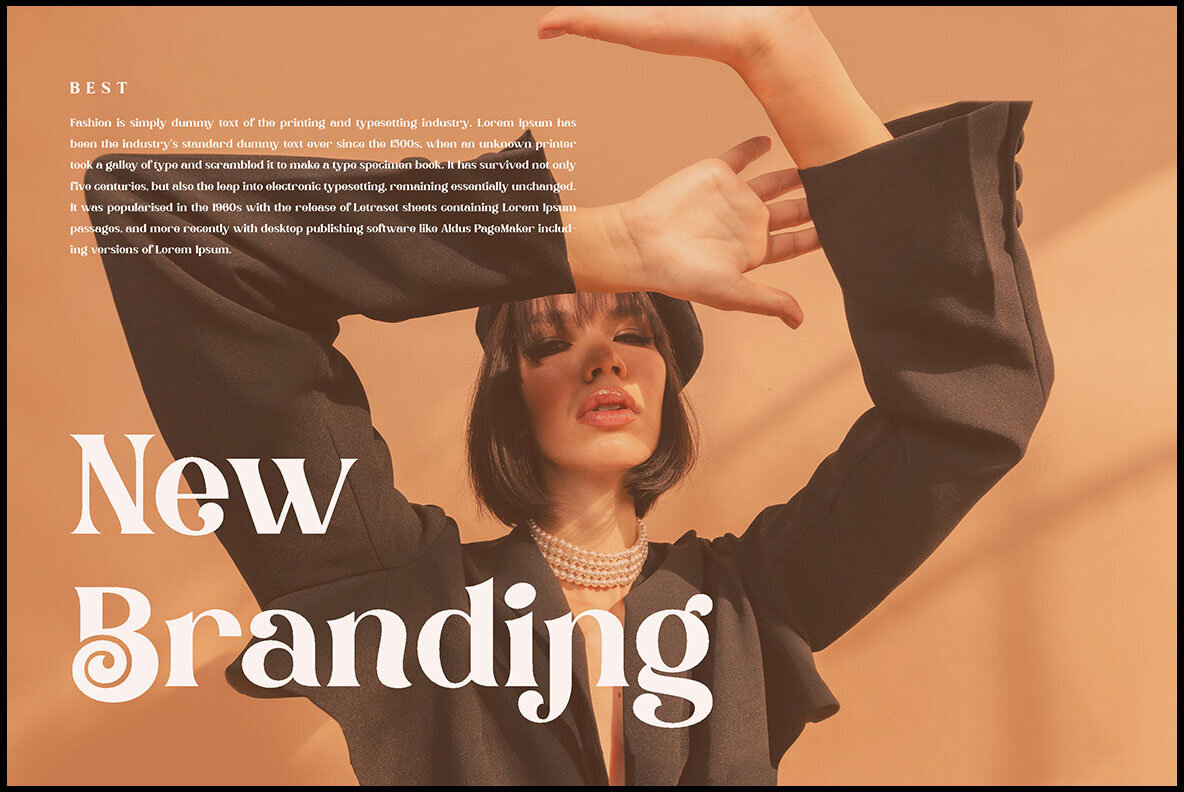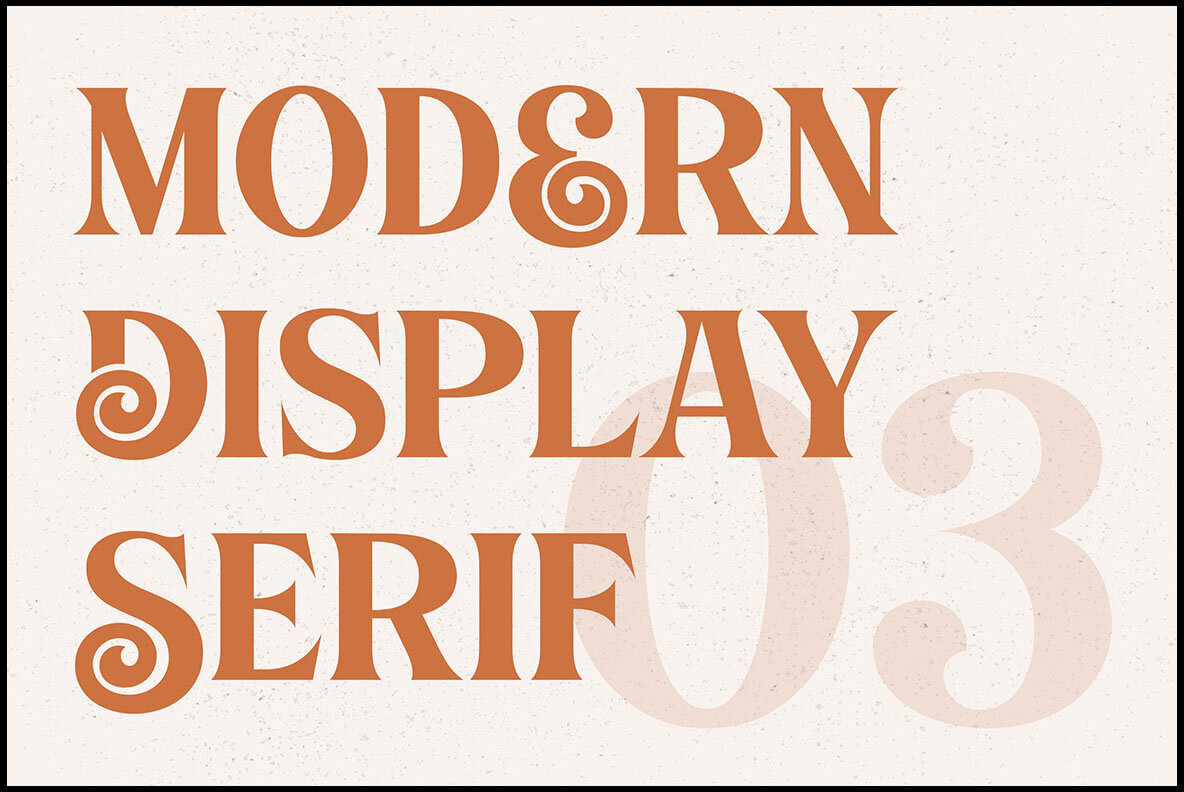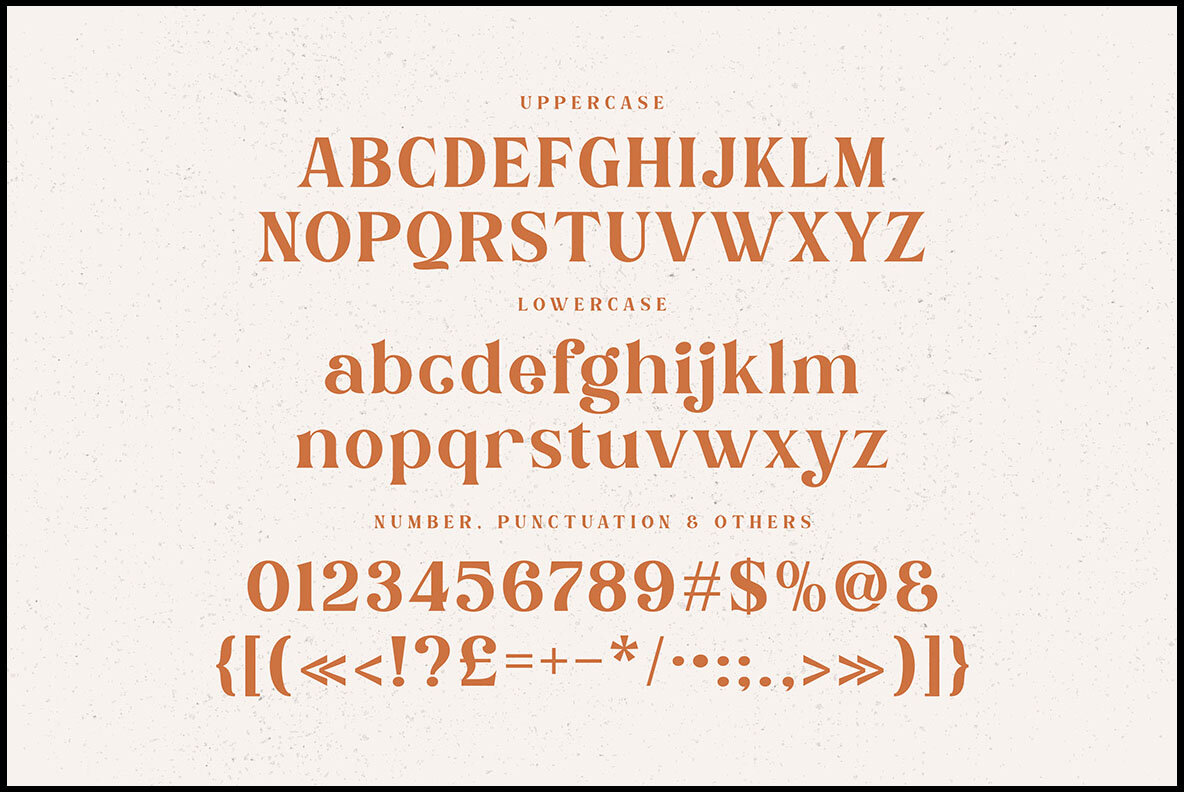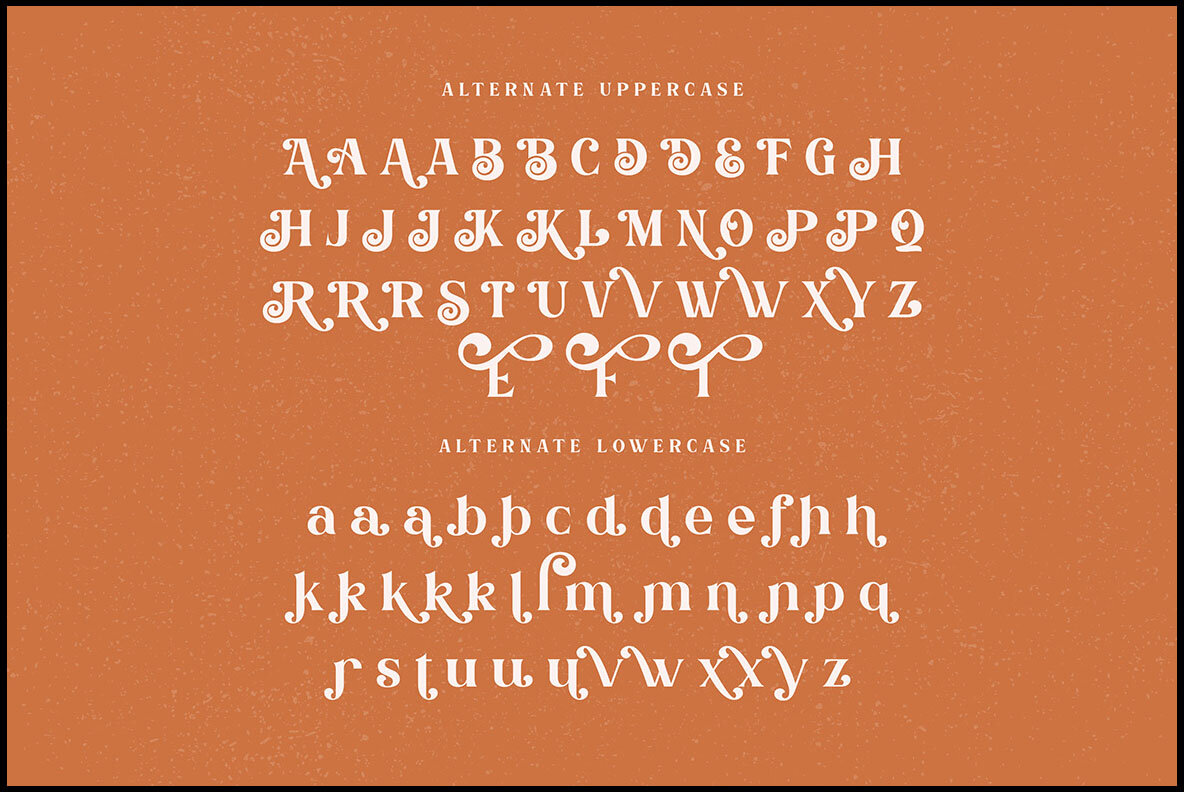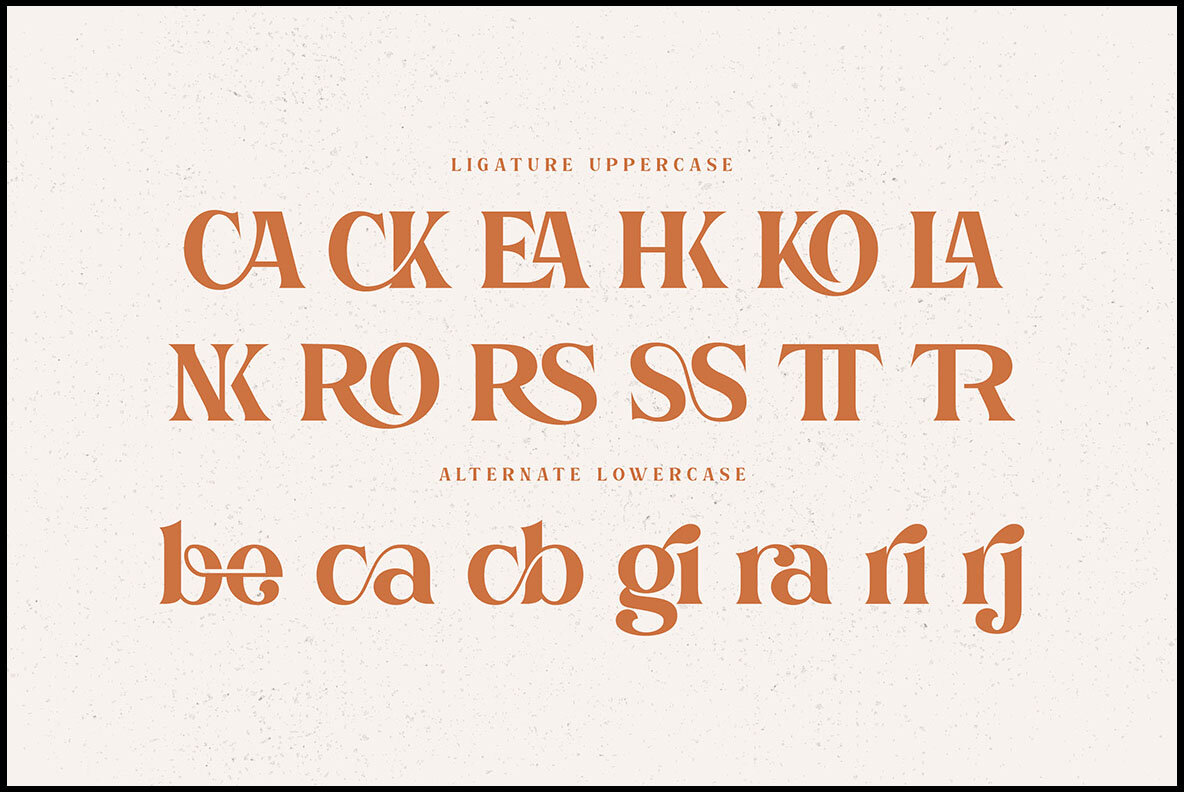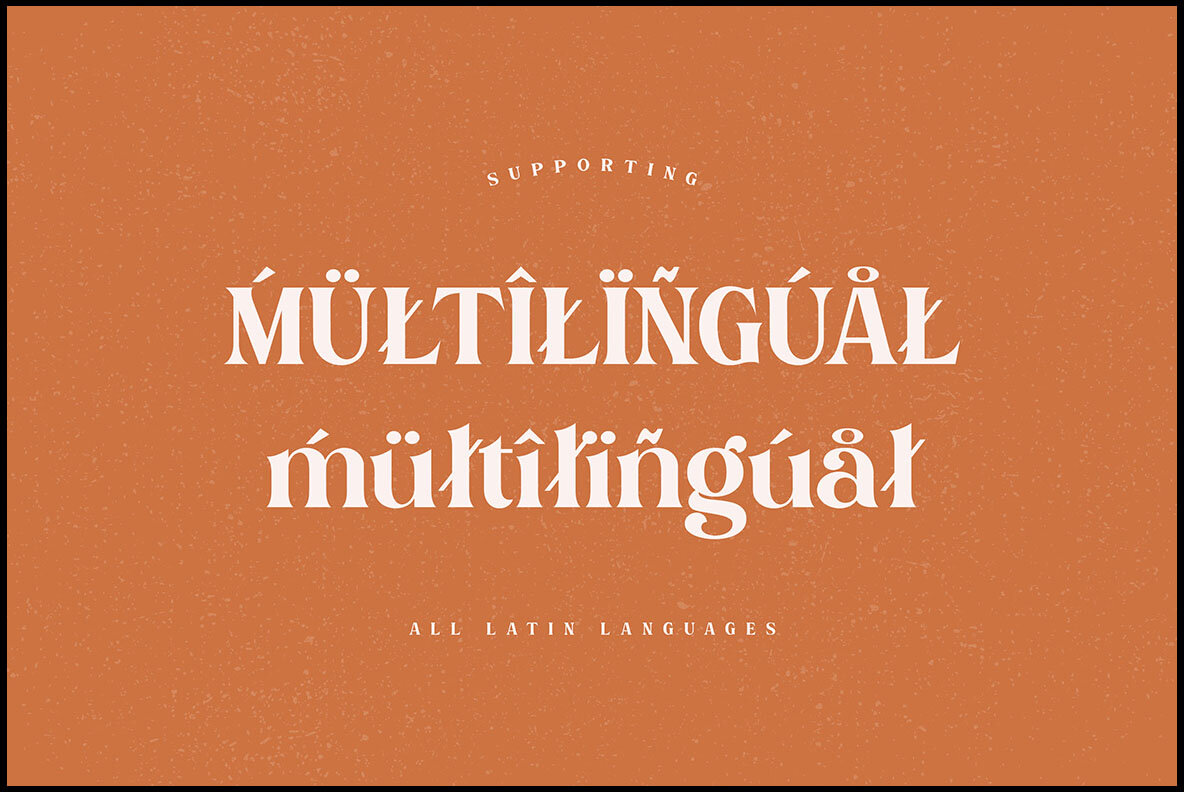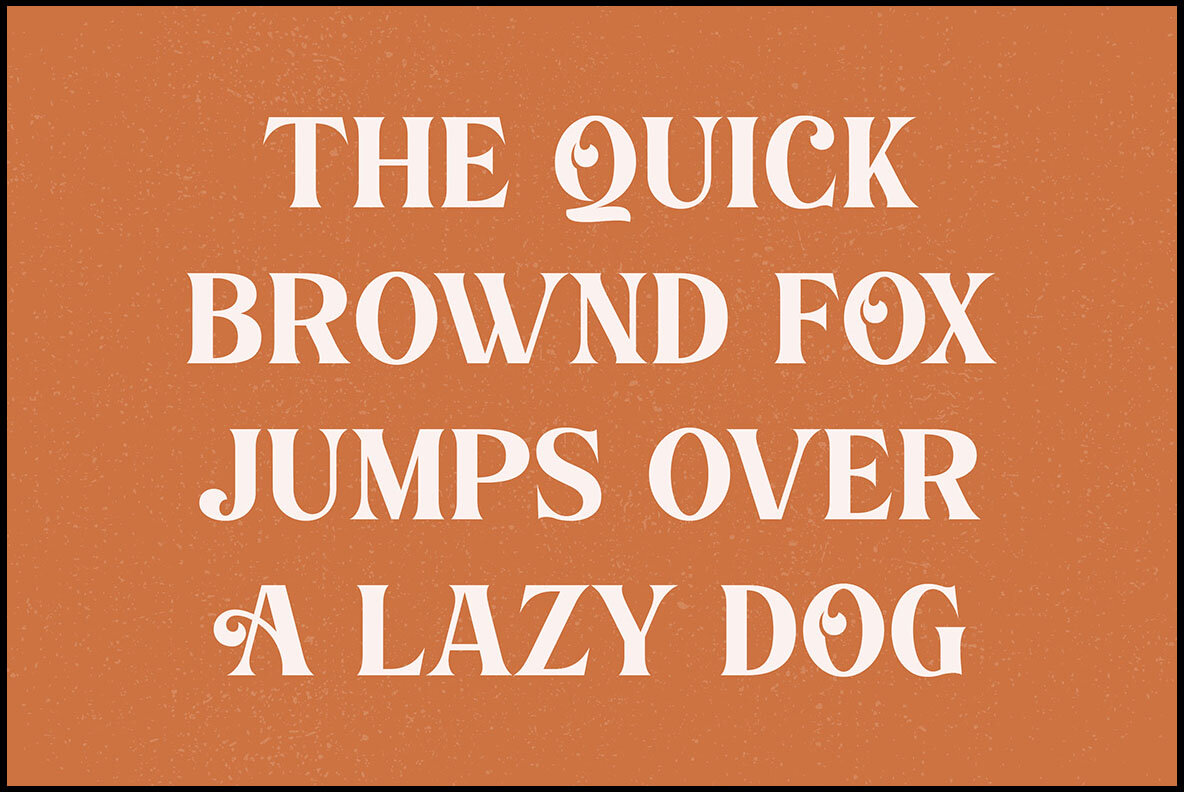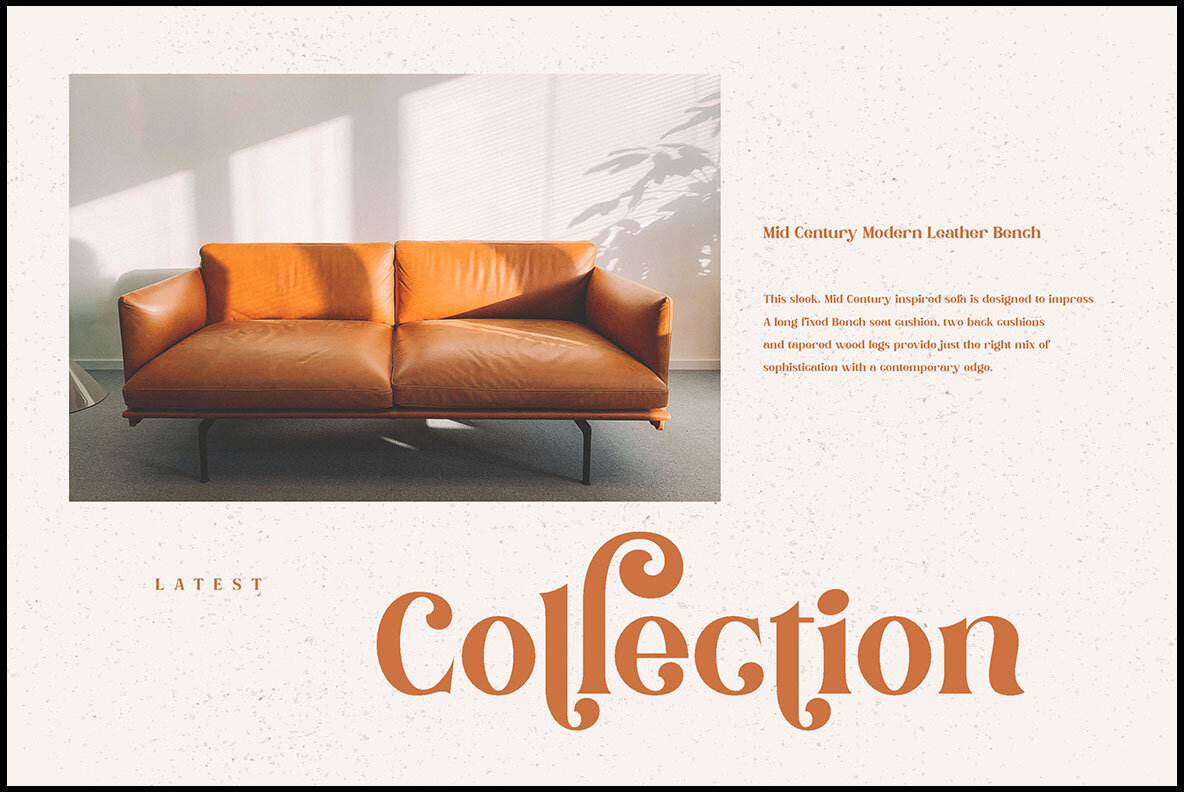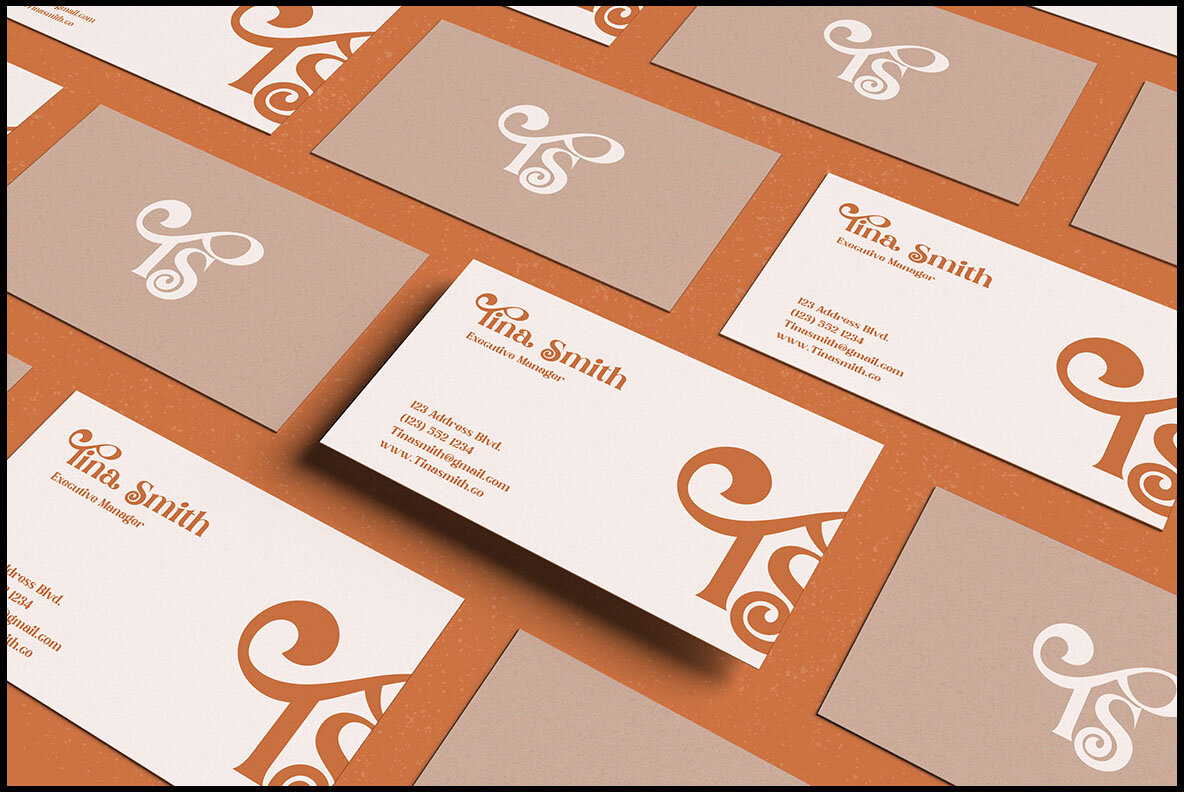
Bogimber Font
Bogimber Regular
Bogimber is a trendy serif font by Peter Olexa, blending elegance with artistic flair. Its luxurious yet retro and modern style makes it perfect for sophisticated projects. The playful and fashionable design of Bogimber adds a distinct character to any branding initiative.Bogimber: Artistic Serif Font with Retro Elegance